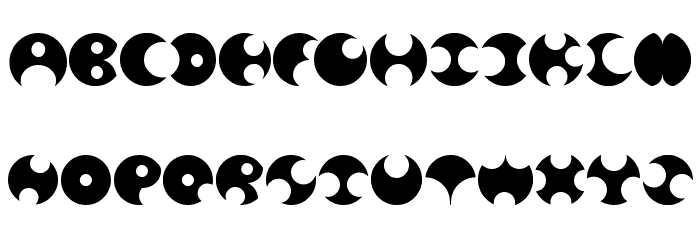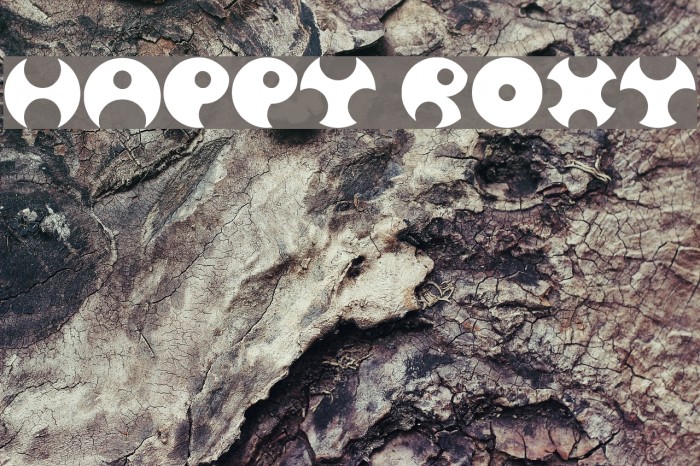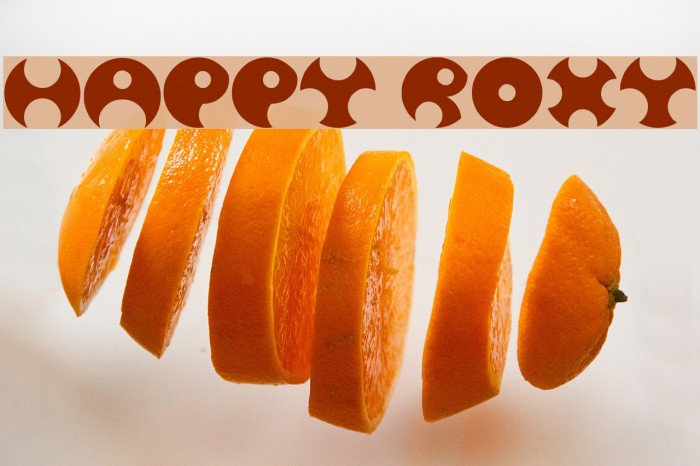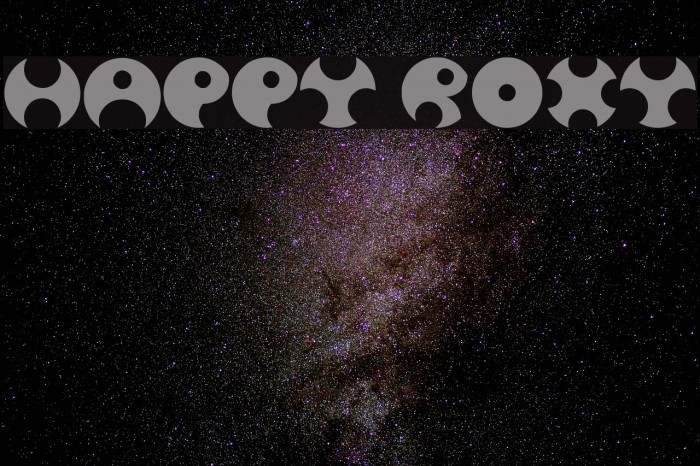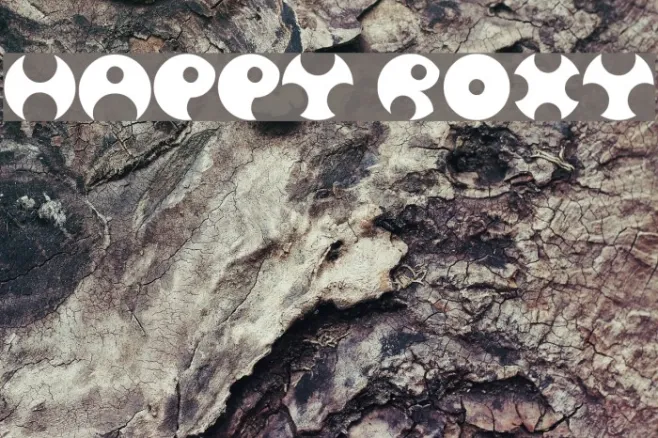
Happy Roxy Font
This font is a bold and striking decorative typeface with a unique, geometric design. The characters are formed with thick, circular shapes that create a sense of rhythm and movement. The uppercase and lowercase letters share a consistent style, with each character featuring a bold, crescent-like cutout that adds visual interest. The numbers and special characters maintain this playful and artistic theme, making the font ideal for creative projects. Its boldness and distinctiveness make it stand out, while the geometric forms give it a modern and futuristic feel.
A bold, geometric decorative font with crescent-like cutouts.
- Proposed Projects: Ideal for posters, album covers, branding, and any project requiring a bold, artistic touch.
- Overall Style: Modern, Futuristic